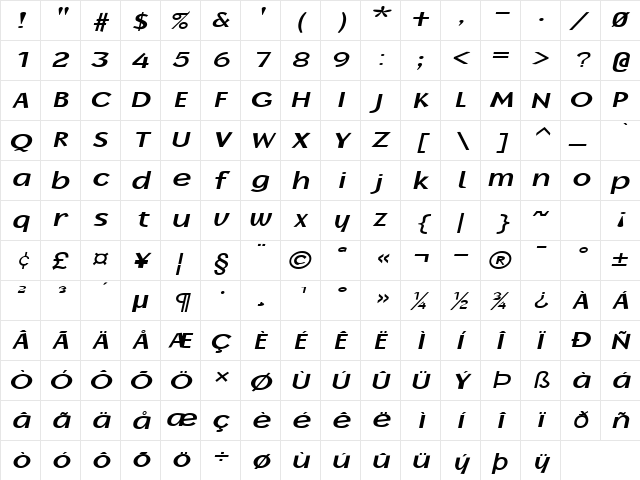
Oak-Ridge-Extended Bold Italic Font Preview
Design Context for Oak-Ridge-Extended Typeface
Oak-Ridge-Extended takes a measured approach to typography — its balanced proportions and neutral character make it a reliable workhorse for both digital and print work. Its italic angle brings a sense of urgency and motion to the letterforms. Its bold stroke weight gives it real presence on the page.
Pro Tip: Try Oak-Ridge-Extended for annotation and caption copy alongside an upright companion — the contrast in angle creates a dynamic but ordered typographic system.